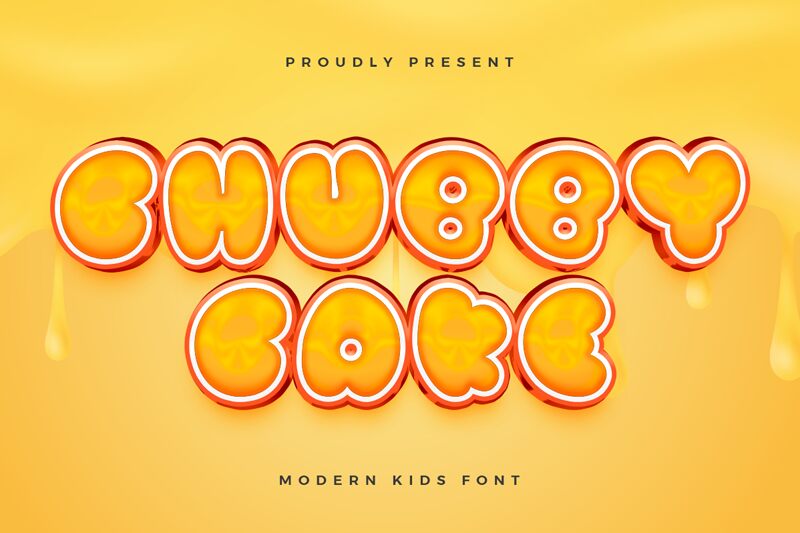
Chubby Cake font, designed by Kong Font, is a bold display type that embodies a playful and whimsical spirit. With its outlined cartoon style, this font exudes charm and joy, perfect for captivating audiences of all ages. Each character boasts a delightful roundness and cheerful personality, making it an eye-catching choice for anything from children's party invitations to vibrant branding projects.
The boldness of Chubby Cake stands out beautifully in headlines or logos, while its friendly contours invite engagement and warmth. This font thrives in creative contexts—whether adorning festive posters or enhancing packaging designs—where fun and approachability are paramount. Its unique aesthetic ensures that any text feels lively and inviting, making it an ideal choice for projects that aim to leave a memorable impression.